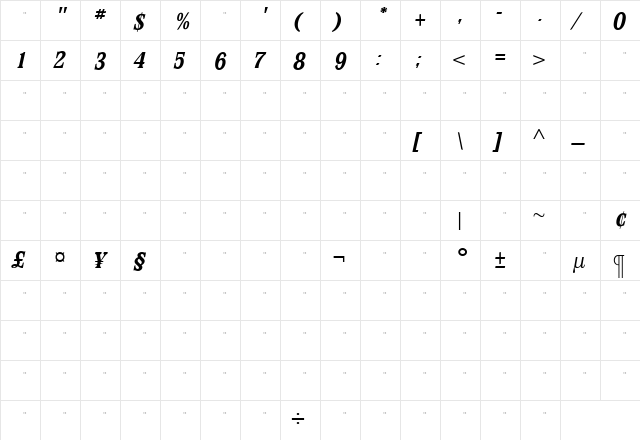
StirlingBoldItalicTab Roman Font Preview
Design Context for StirlingBoldItalicTab Typeface
StirlingBoldItalicTab takes a measured approach to typography — its balanced proportions and neutral character make it a reliable workhorse for both digital and print work. Its italic angle brings a sense of urgency and motion to the letterforms. The heavy weight commands attention and anchors typographic hierarchies.
Pro Tip: Use StirlingBoldItalicTab for emphasis, pull quotes, and subheadings where its slanted energy can add rhythm to the layout.